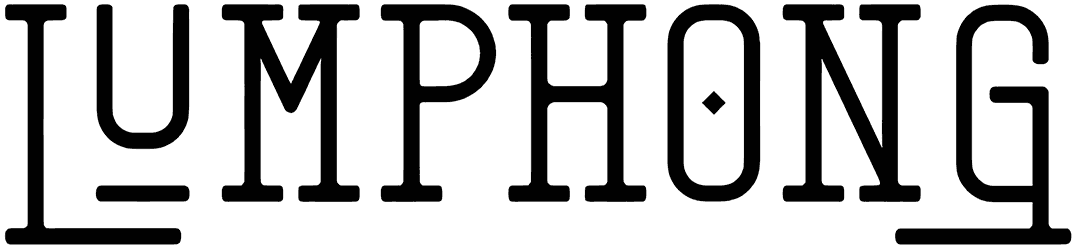
Lumphong Font
Sometimes using a classic and timeless visual would be the perfect selection for your creative design, and this slab serif font has the potential to do it. The letters are minimal, and they can throw a modest and noble feeling into your project. Lumphong font doesn’t support lowercase letters, but let’s try it for your restaurant façade design and see how amazing the final draft will be.